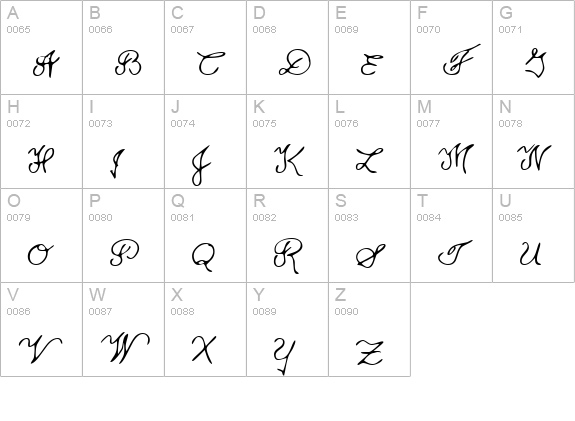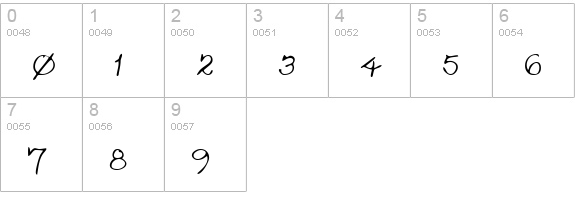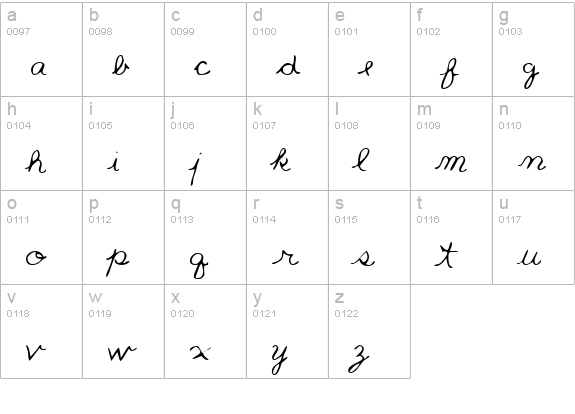
QuestsHand Regular Font Details
QuestsHand Regular is the standard, neutral variant in the QuestsHand typeface family \xE2\x80\x94 well suited to general body text, paragraphs, and standard typographic work.
Introducing QuestsHand Regular font, a stunning and versatile typeface that will elevate your designs to new heights. With its elegant and playful letterforms, this font is perfect for a wide range of creative projects, from branding and packaging to logos and invitations. QuestsHand Regular font exudes a sense of whimsy and charm, making it ideal for designs that require a touch of creativity and personality. Its smooth and flowing lines add a dynamic and eye-catching element to any composition, captivating the viewer's attention. What makes QuestsHand Regular font even more appealing is that it is freely available to download at FontsMarket.com. This means that you can enhance your designs with this remarkable font without any cost. Whether you are a professional designer or a hobbyist, this font is an excellent addition to your typographic arsenal. With its wide range of characters, including uppercase and lowercase letters, numerals, punctuation marks, and special symbols, QuestsHand Regular font offers endless possibilities for customization. You can easily experiment with different styles, sizes, and colors to create unique and memorable designs that truly stand out. The versatility of QuestsHand Regular font extends beyond its aesthetic appeal. It is also highly legible and readable, ensuring that your message is conveyed clearly and effectively. Whether it's a headline, body text, or a call-to-action, this font will ensure that your words are easily understood by your audience. Don't miss the opportunity to enhance your designs with the captivating charm of QuestsHand Regular font. Download it for free at FontsMarket.com and unlock a world of endless creativity. Elevate your designs and make a lasting impression with this truly remarkable typeface.